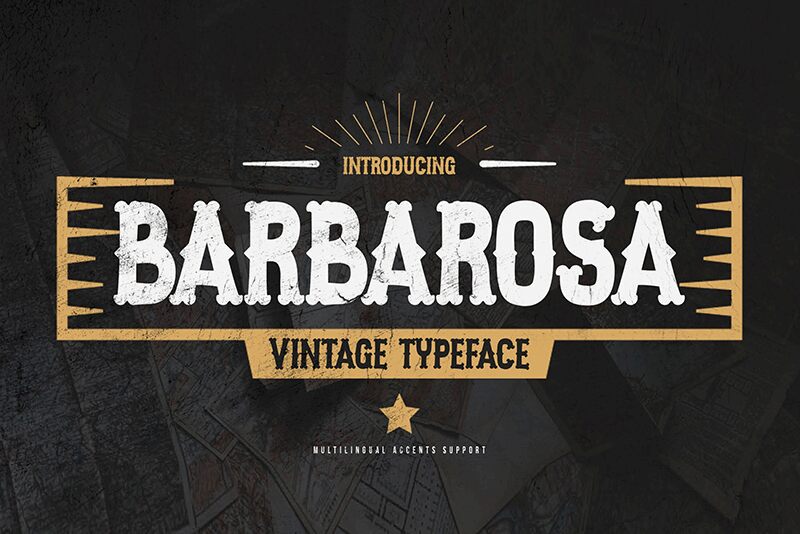
Gassstype has created a captivating old school Western font called Barbarosa that carries with it an air of strength and authority. This typeface is designed to look like it was made from pieces of metal hammered together by hand, giving off the impression that it belongs on the title card for some gritty spaghetti western film. The unconventional use of heavy lines and angular terminals throughout creates a unique visual impact that makes this font perfect for any project looking for something loud and in-your-face typographically.
Barbarosa can be used in many different ways because of its versatility; eye-catching headlines, impactful logos, rustic branding materials or even western-themed publications – all are fair game when working with Barbarosa. There’s just so much personality packed into every letterform here that dynamic attention-getting compositions practically make themselves – which means designers should absolutely love using this one wherever they need boldness most!
Barbarosa